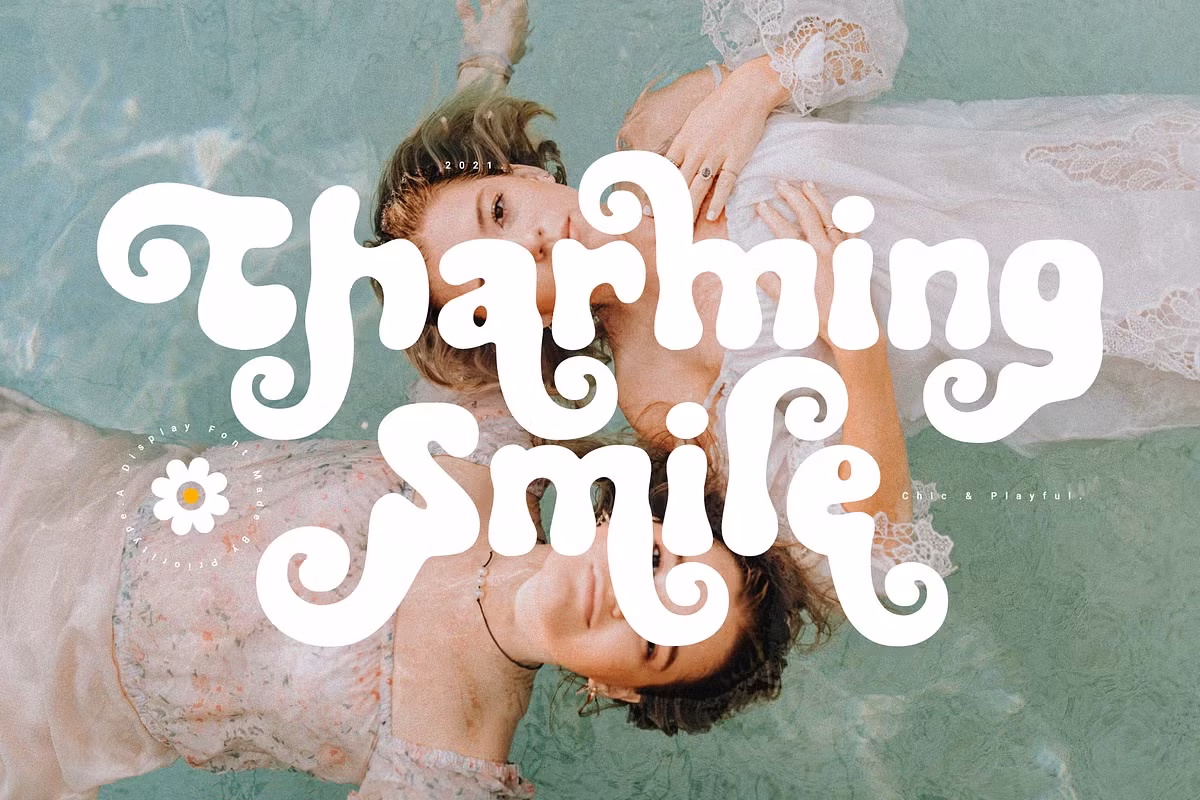
Charming Smile Font Free Download
Charming Smile Font Free Download is a delightful and elegant typeface that brings a touch of warmth and personality to any design project. With its soft curves and playful character, this font is ideal for invitations, social media graphics, branding, and even personal blogs. It exudes a friendly and approachable vibe, making your text feel more human and engaging.
Whether you're working on a romantic wedding invitation or a cheerful product label, Charming Smile Font adds that extra charm to your work. Its clean and modern script style ensures readability while still maintaining a unique aesthetic that stands out from the crowd.